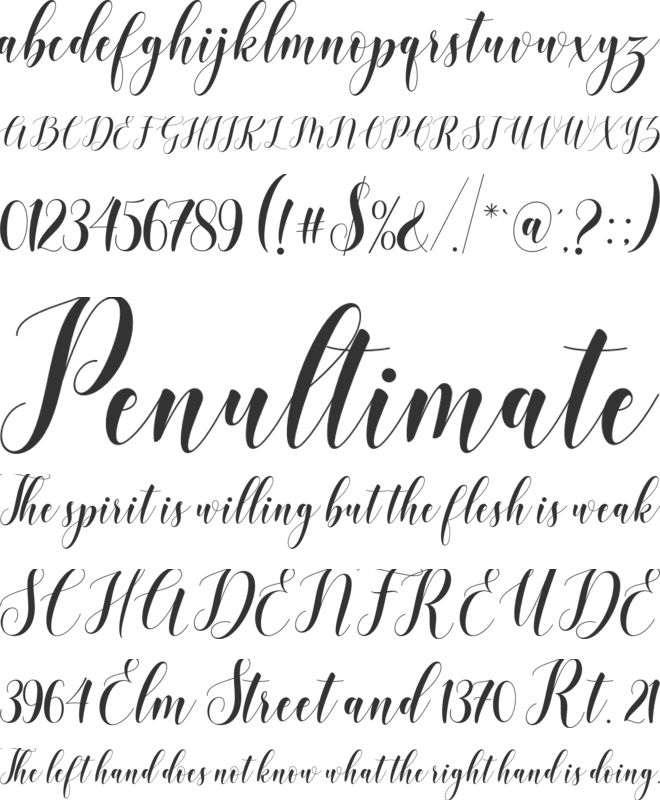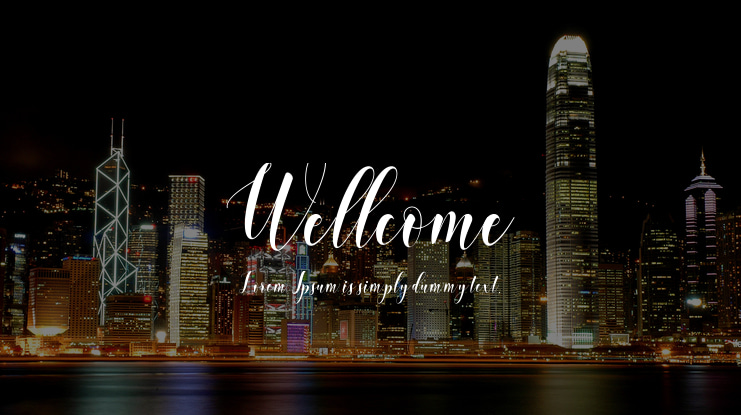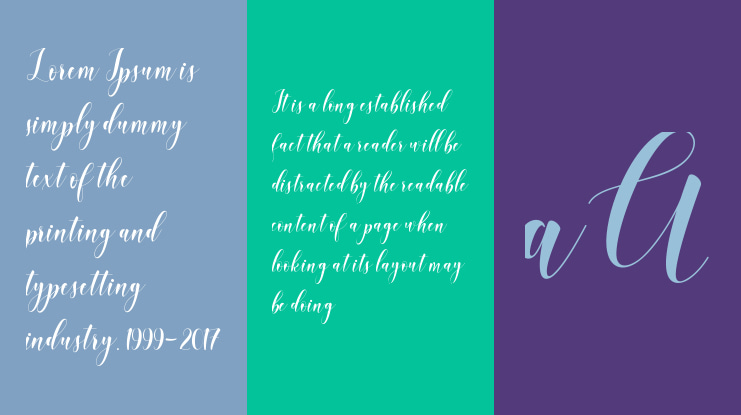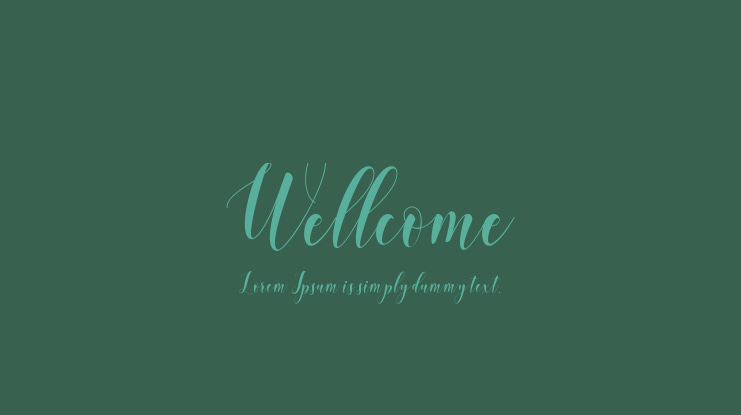
Wellcome Font
The Wellcome is an elegant font with which you can achieve a handwritten-type lettering feeling.
Its signature style is perfect for modern graphic design needs. It has a nice flow so its perfect for adding a personal touch to long texts.